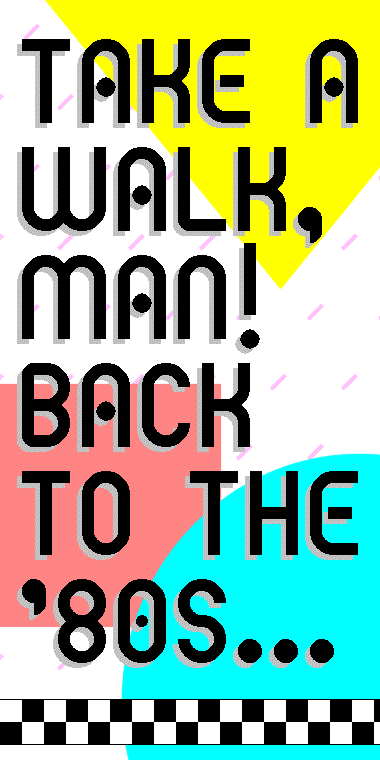
Still preoccupied with 1985...
Awesome! It's really '80s styled. Makes my think of a futuristic video game.
Looks like the picture I created did the trick; I tried to think of every prominent graphic style from the 1980s -- my teenage years:
-- Small repeating pastel patterns against a white background? Check.
-- Use of large geometric shapes? Check.
-- Liberal use of primary or pastel colors? Check.
-- Black-and-white checkerboard pattern? Check.
congrats on your well-deserved TP. other than being my kind of font, this is very evocative for me. having owned many walkmans, your sample makes me want to dig one out, pop in a cassette, lace up the roller skates and go for a spin :) ah the days of wine and roses...
I had a lot of fun with this one, trying to figure out what to do with the 90° corners. Luckily, the corner of the L was rounded, pointing out the solution to me.
Yes, cassette tapes, video game arcades, Intellivision, VCRs, TRS-80 Color Computer... the good old days. :^)